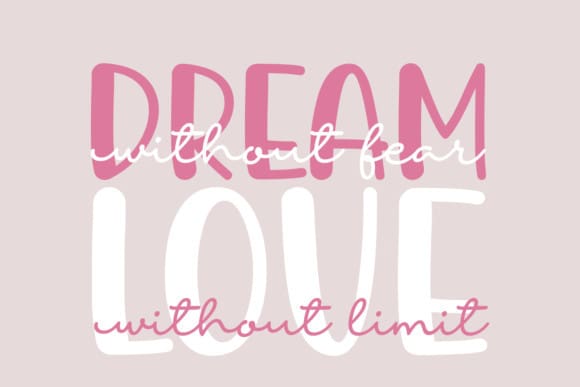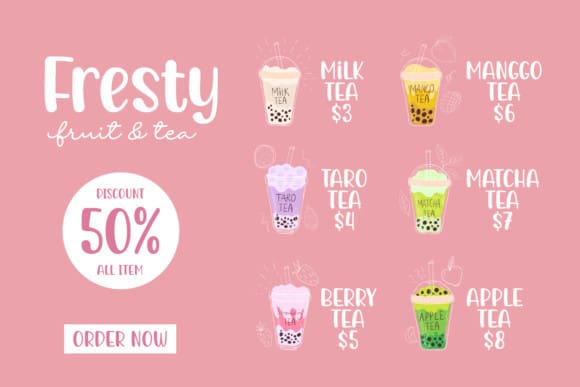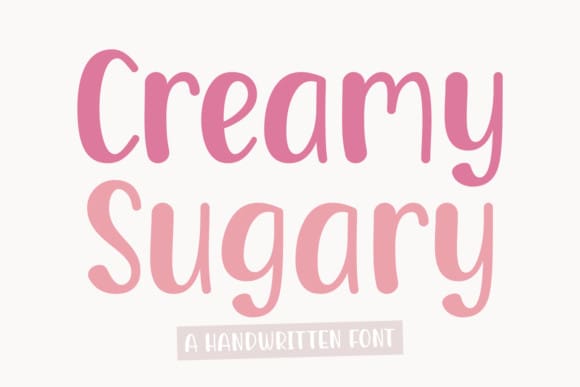
Creamy Sugary Font
Creamy Sugary Font is a playful and fun handwritten font that will inspire you to create something sweet. Use it on storybooks, book covers, children-related designs, ice-cream logos, or more!